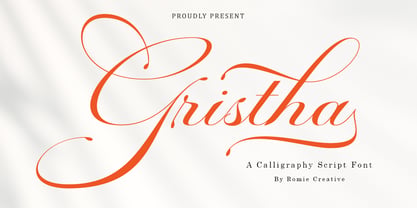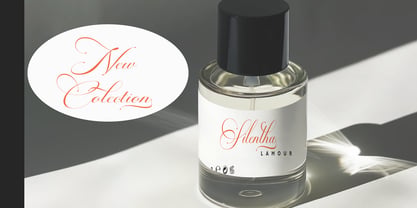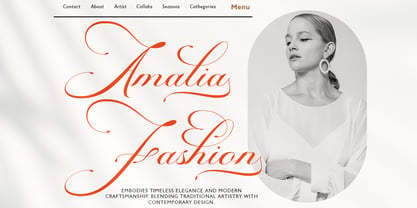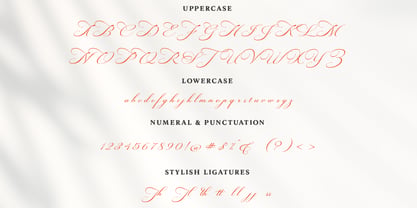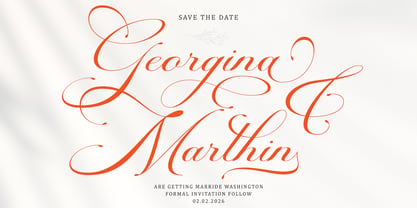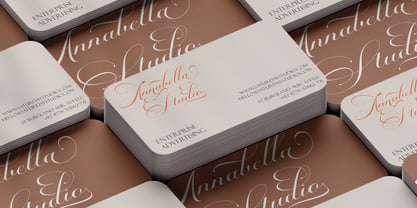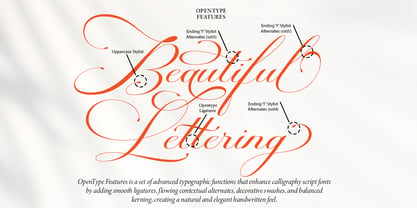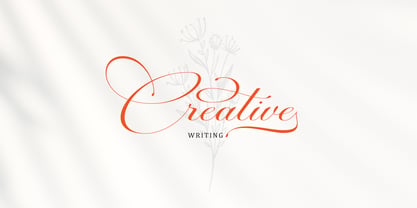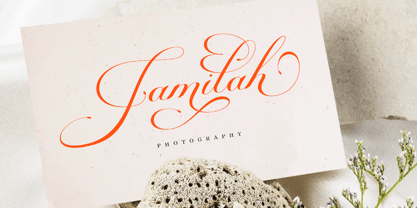
Gristha Script
by Romie Creative
The Gristha Script Font Family was designed by Romi Rahmadi and published by Romie Creative. Gristha Script contains 1 styles. More about this family
Gristha Script is a modern script font with a classic and elegant touch. Gristha Script is appealing because it's sleek, clean, feminine, sensual, glamorous, simple, and highly legible, thanks to its many luxurious letter connections. I also offer a number of stylish alternatives for some of the letters. Its classic style is perfect for various formal applications such as invitations, labels, restaurant menus, logos, fashion, makeup, stationery, novels, magazines, books, greeting/wedding cards, packaging, labels, or any kind of advertising needs. Need help or have questions, let me know. I'm happy to help. Thank you.
Designers: Romi Rahmadi
Foundry: Romie Creative